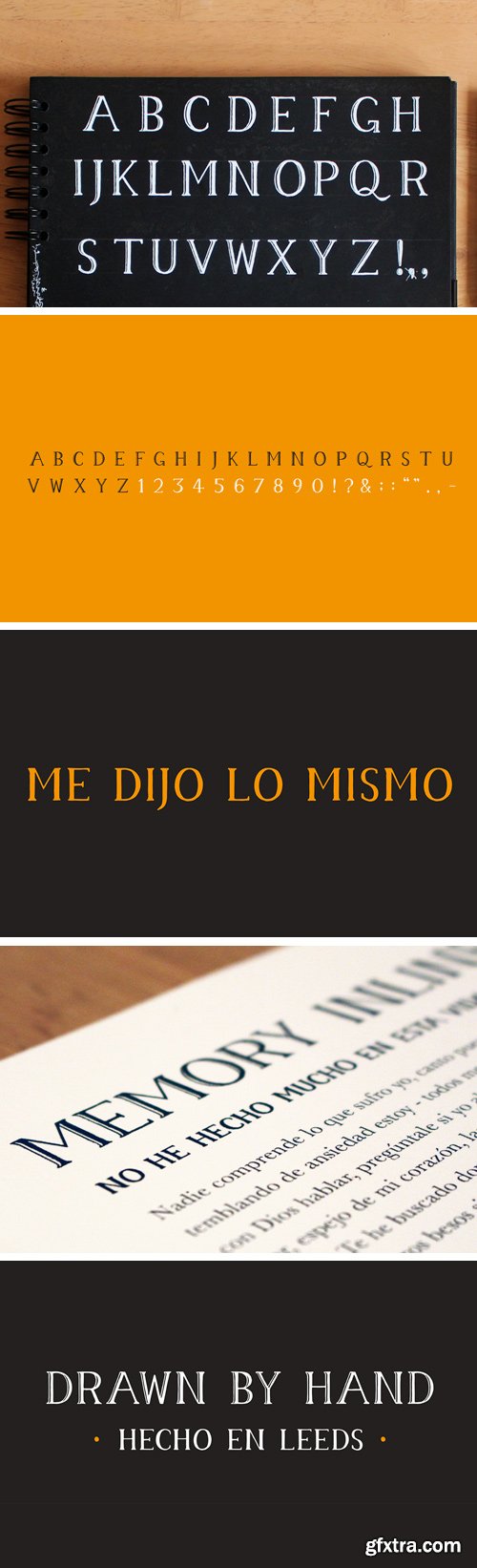
Memory Hand Drawn Font
Memory handwritten font is was hand-drawn entirely from memory, creating a visual record of mind’s alphabet. Each glyph was drawn in alphabetical order, without any references, in white ink on black paper.